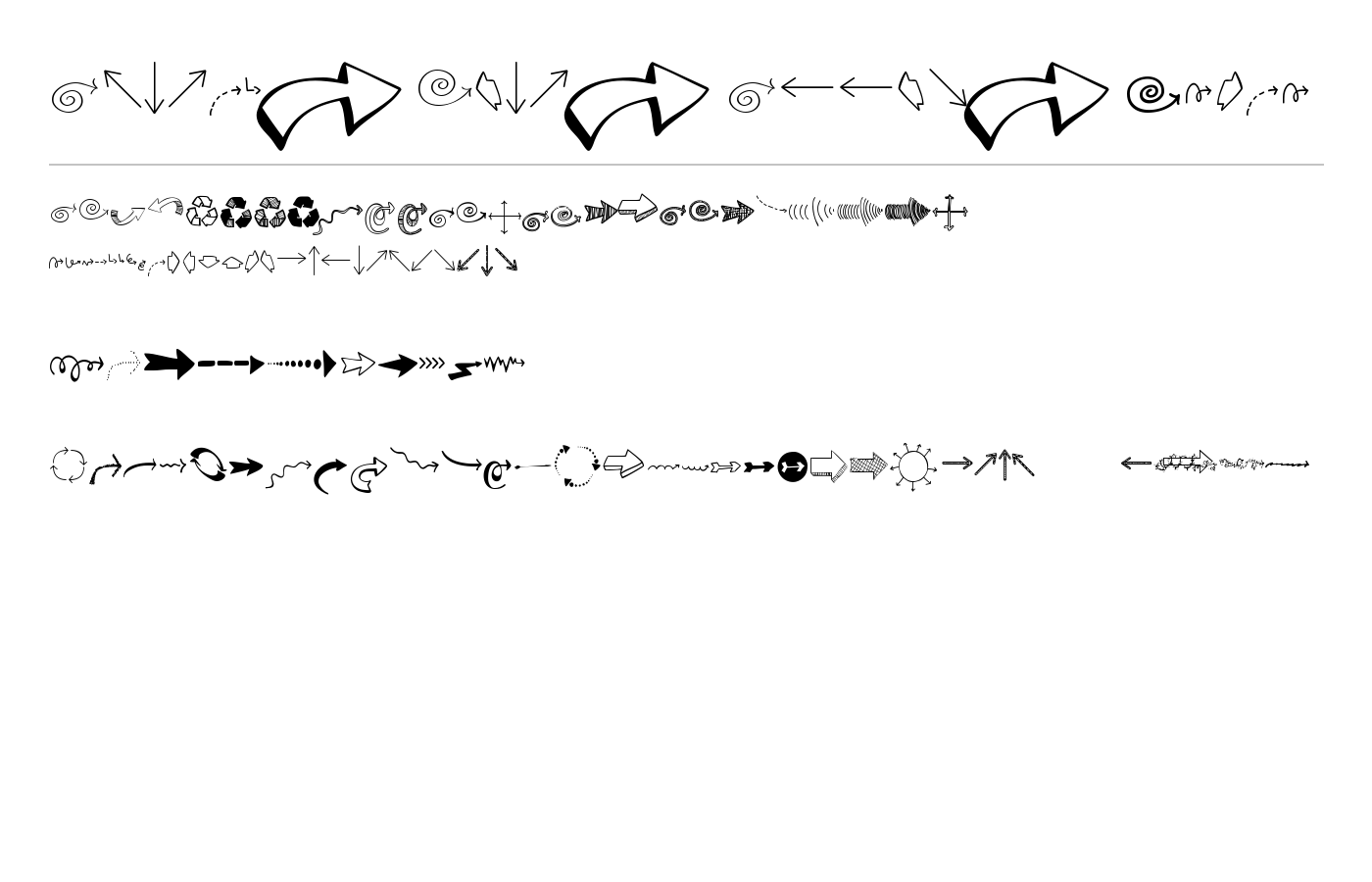
Austie Bost Arrow Mania is a playful and decorative dingbat font featuring a wide variety of uniquely styled arrow icons with diverse shapes, weights, and line textures. Its whimsical and dynamic design makes it ideal for creative projects needing visual direction or emphasis, such as invitations, posters, and digital artwork. This font adds a fun, energetic touch to any design with its bold and quirky arrow motifs.
Austie Bost Arrow Mania Font
About Austie Bost Arrow Mania Font
| Font family | Austie Bost Arrow Mania Font |
| Designer | Austin Owens |